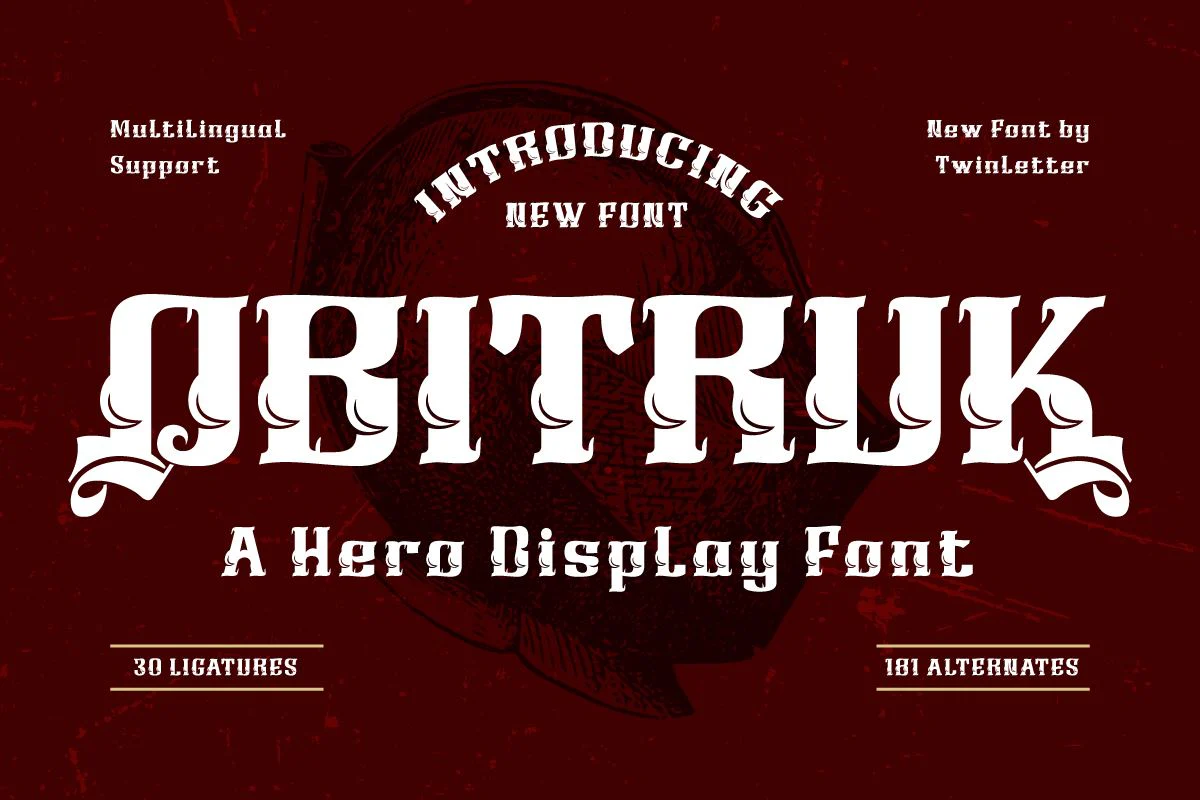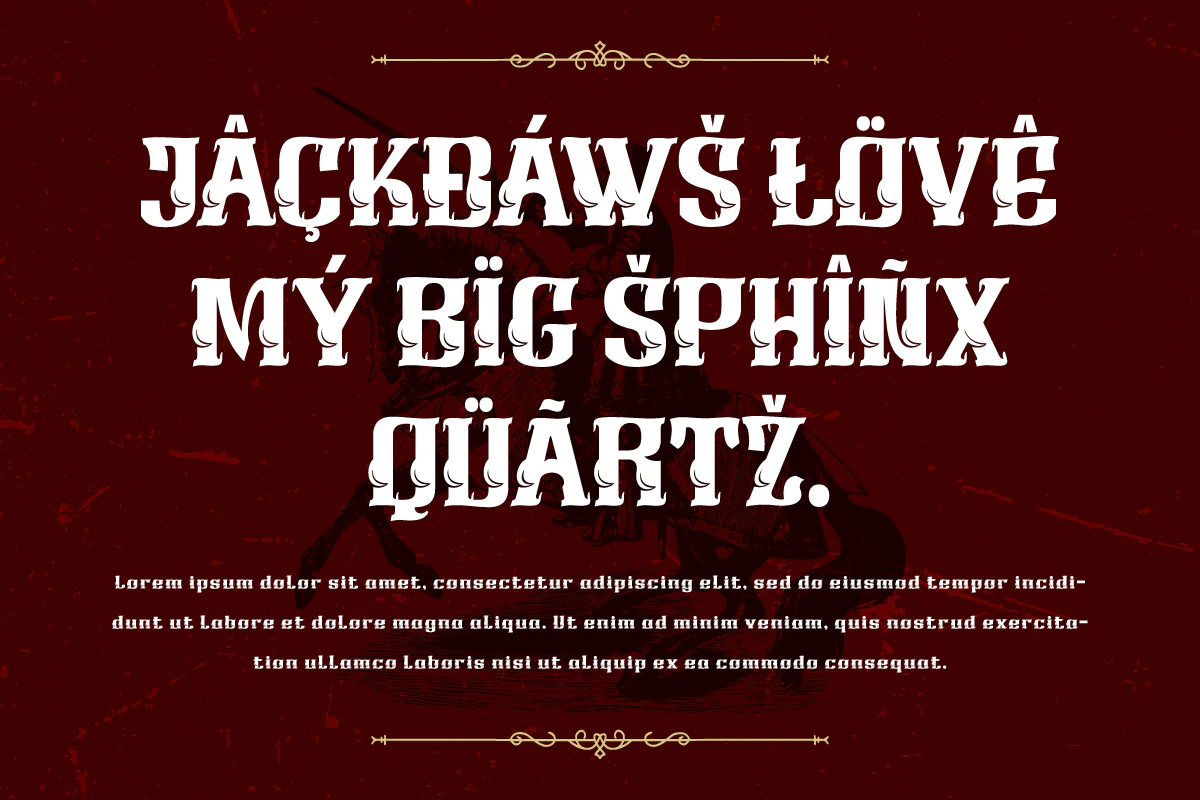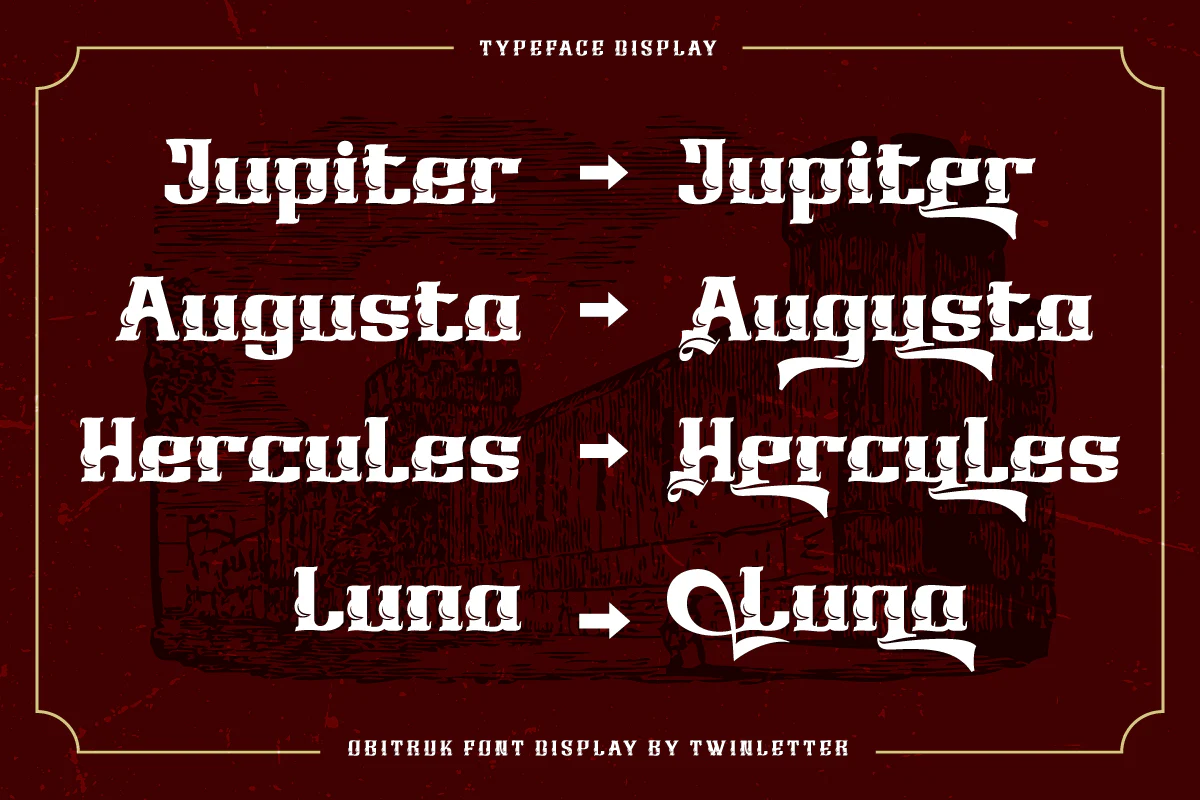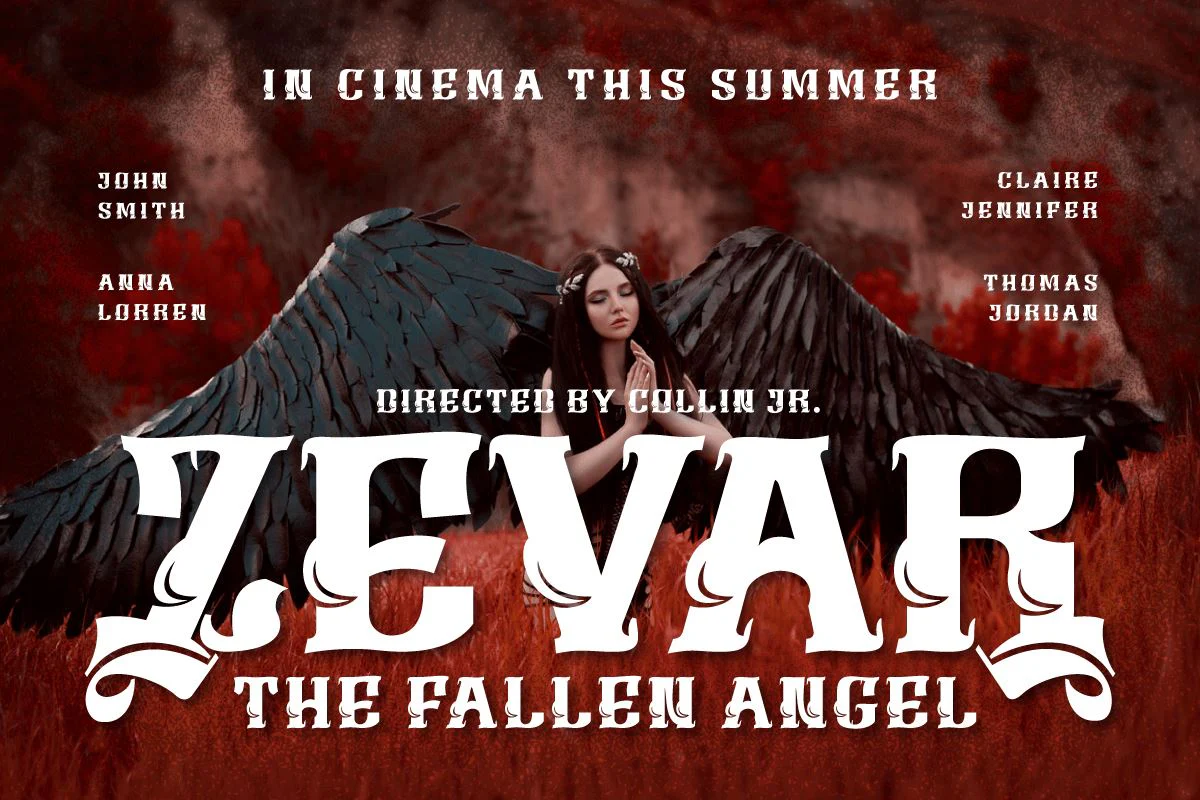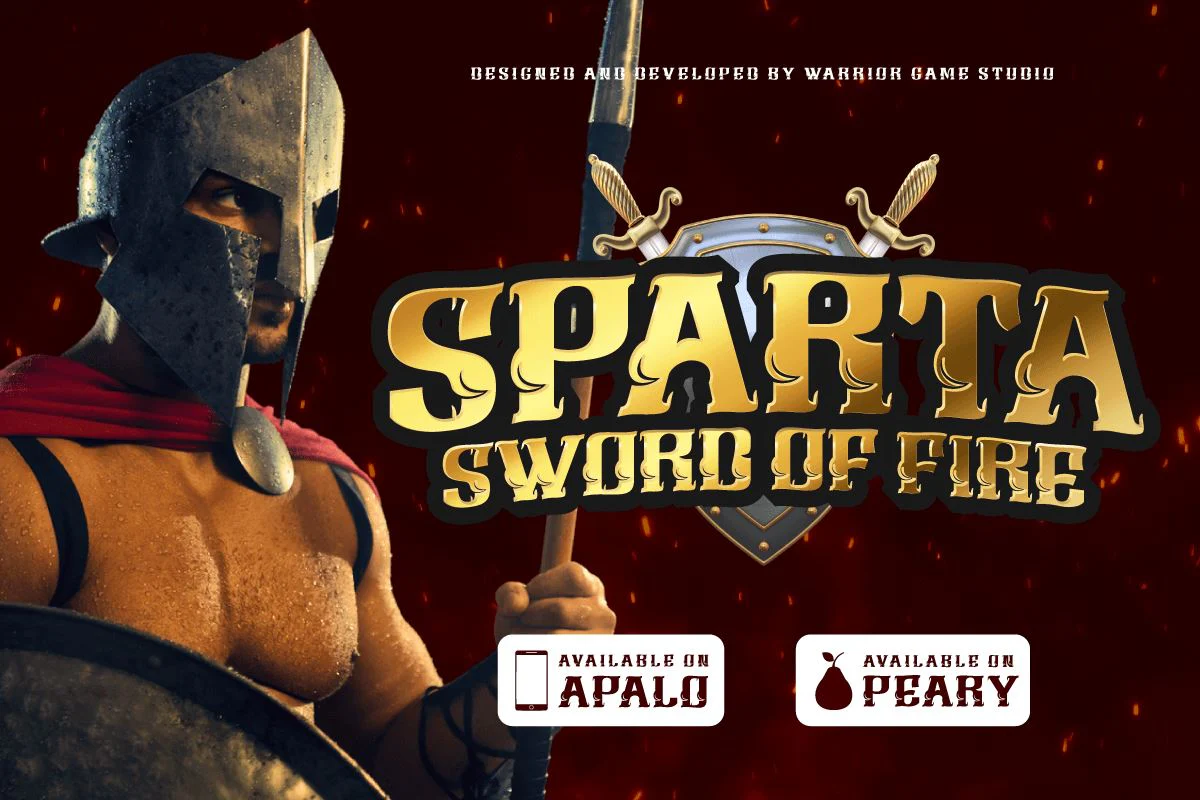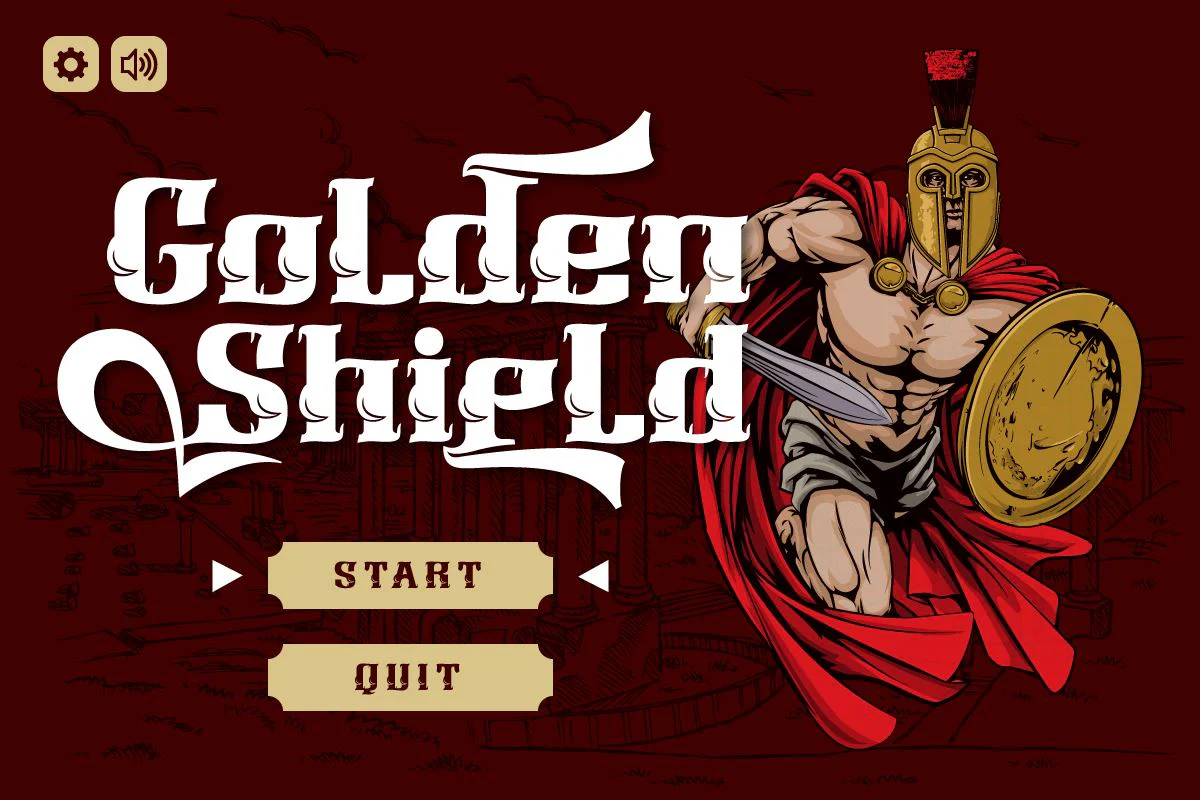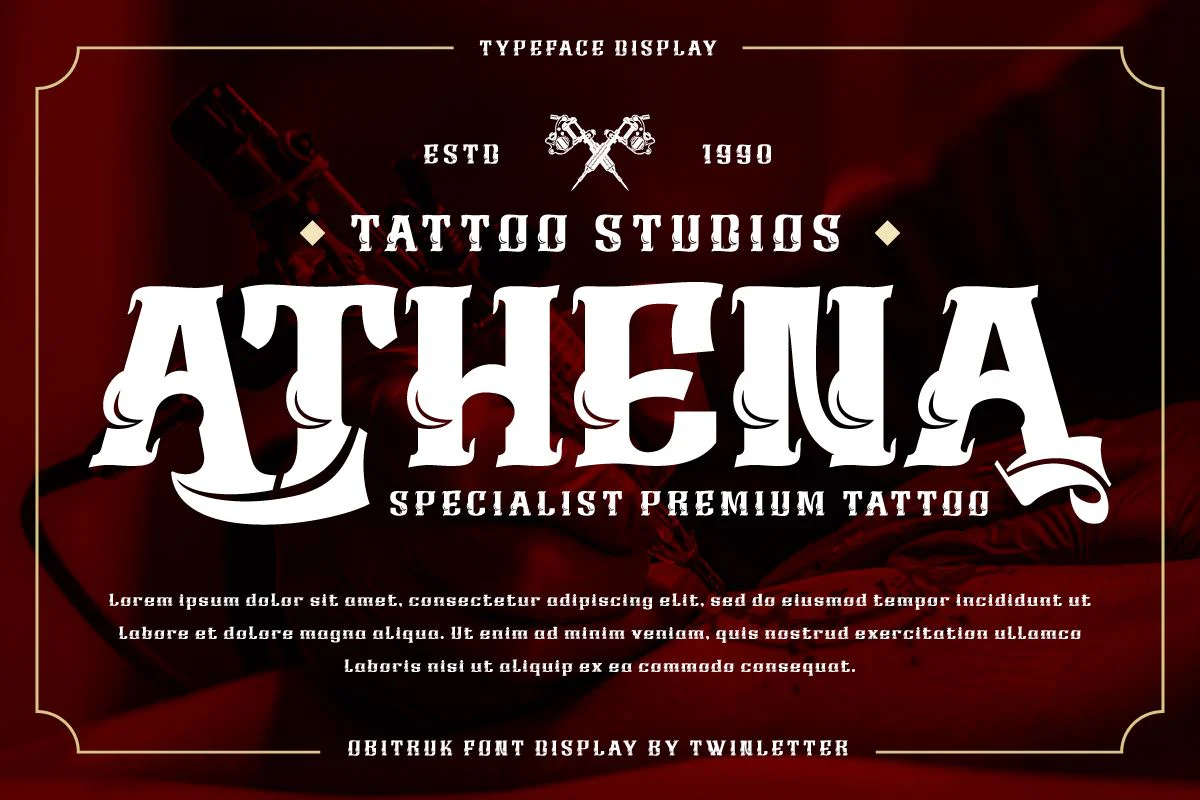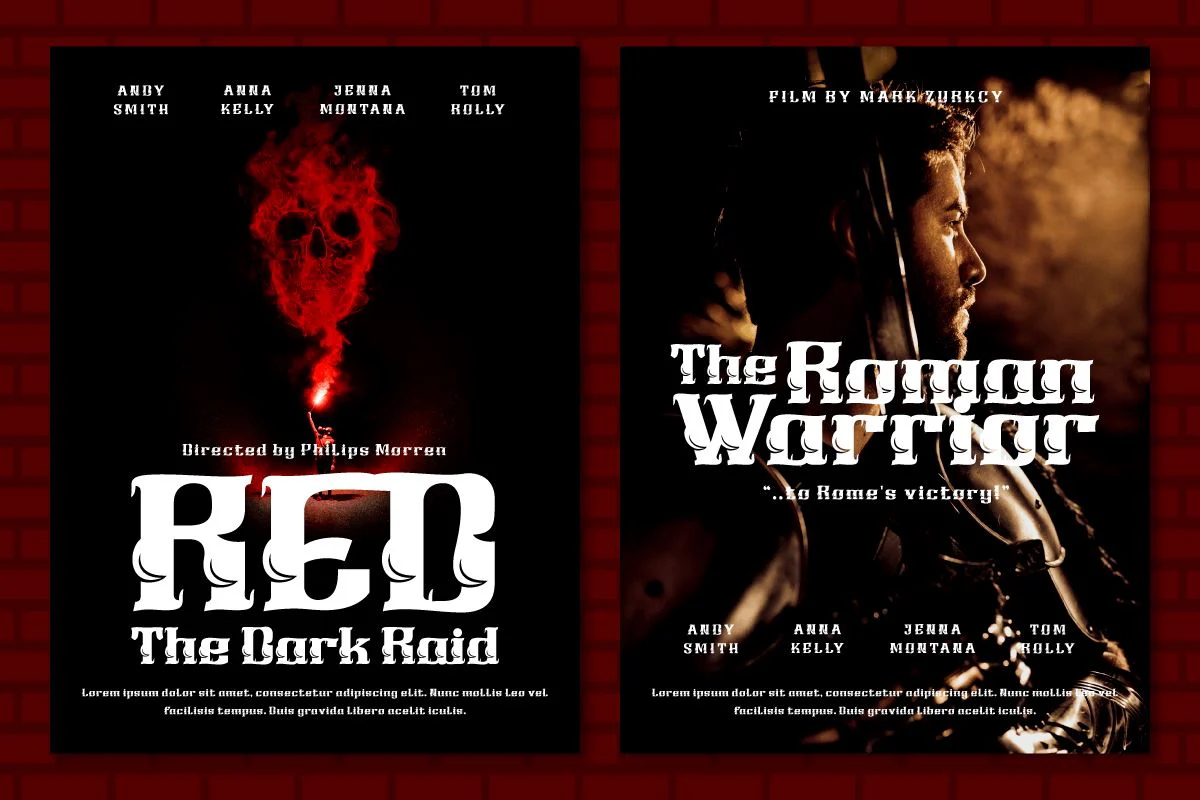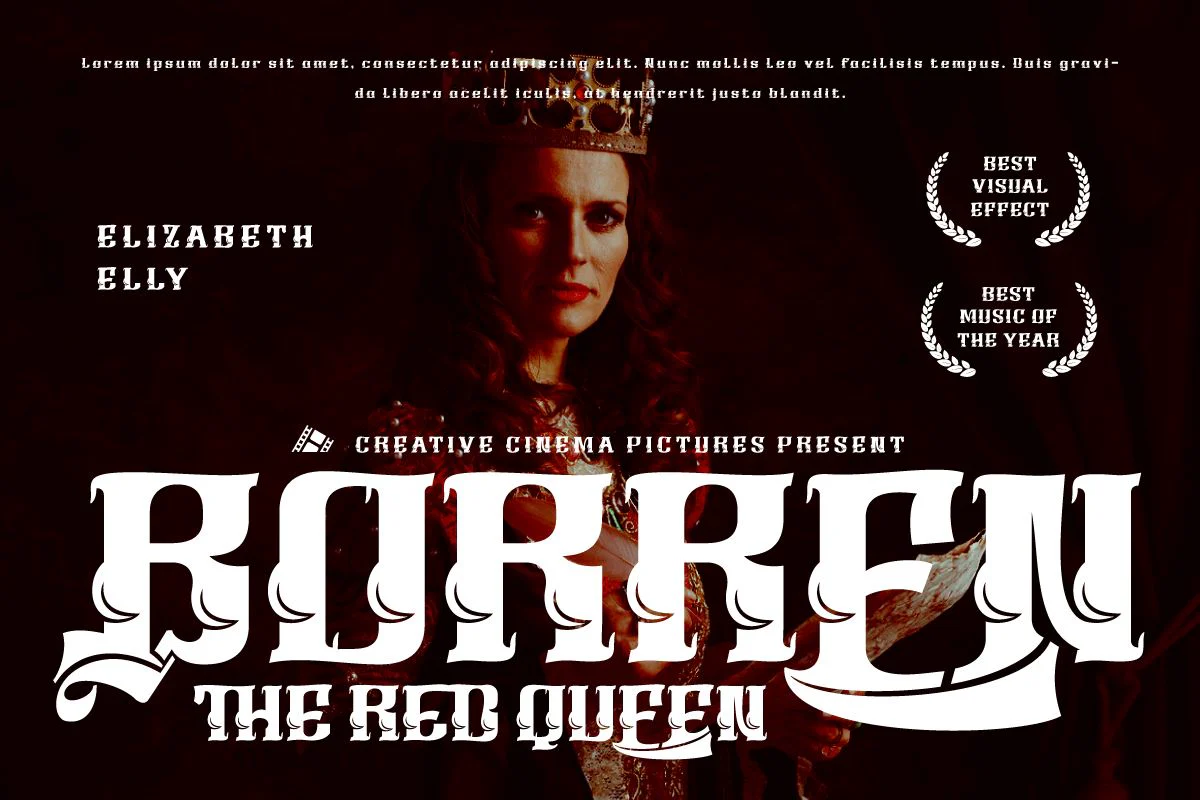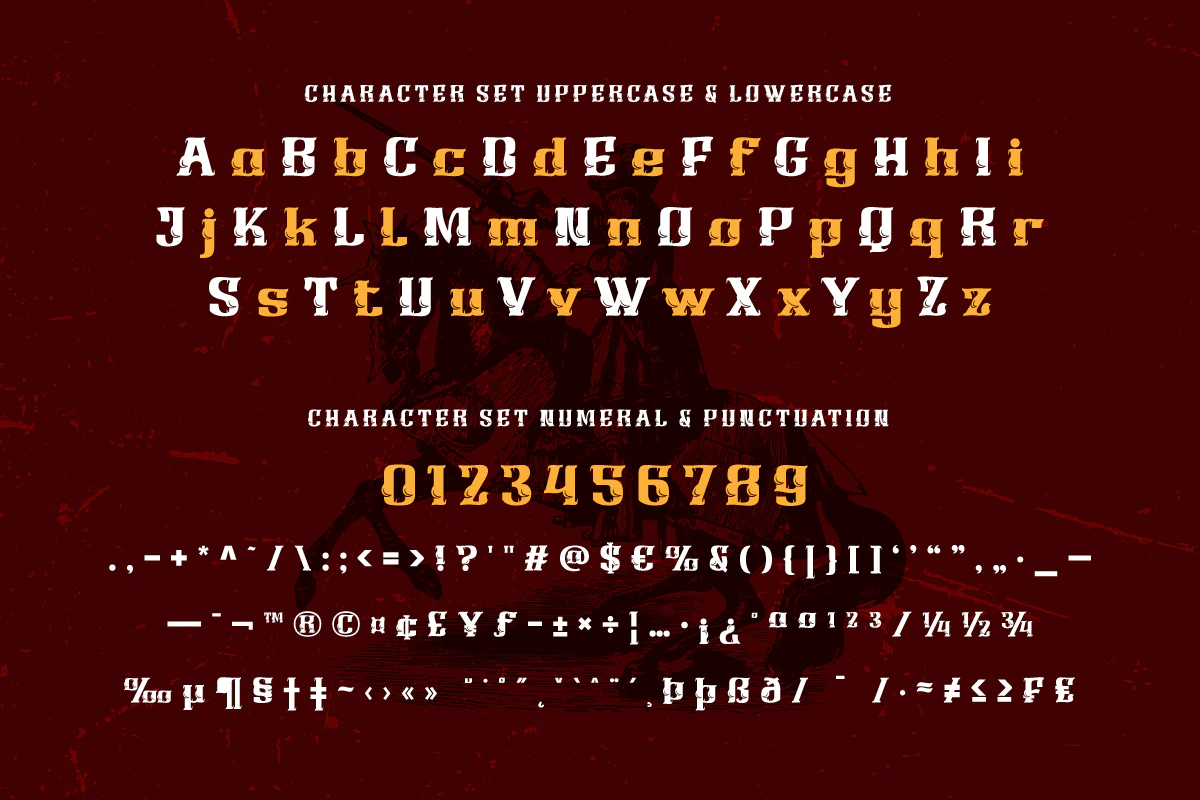
OBITRUK | Display Hero Font
Meet Obitruk, a powerful display font with a superhero style that will take your projects to a new level. Whether you’re working on a movie, a game, or a design with a strong and bold theme, Obitruk is the perfect solution. With its strong, bold appearance, this font exudes confidence and draws attention. Distinctive superhero style adds fun and adventure to your creations, making them stand out from the crowd.
Obitruck not only looks amazing but is also packed with features that will enhance your designs. Ligature and alternative characters provide flexibility and creative possibilities, allowing you to customize and add unique touches to your typography. Plus, multilingual support ensures your message is accessible to a global audience.
Show the power of Obitruk and bring your projects to life. Get ready to make a bold statement with this dynamic font that embodies strength, thickness, and a fearless spirit. Improve your designs with Obitruk and leave a lasting impression on your audience.